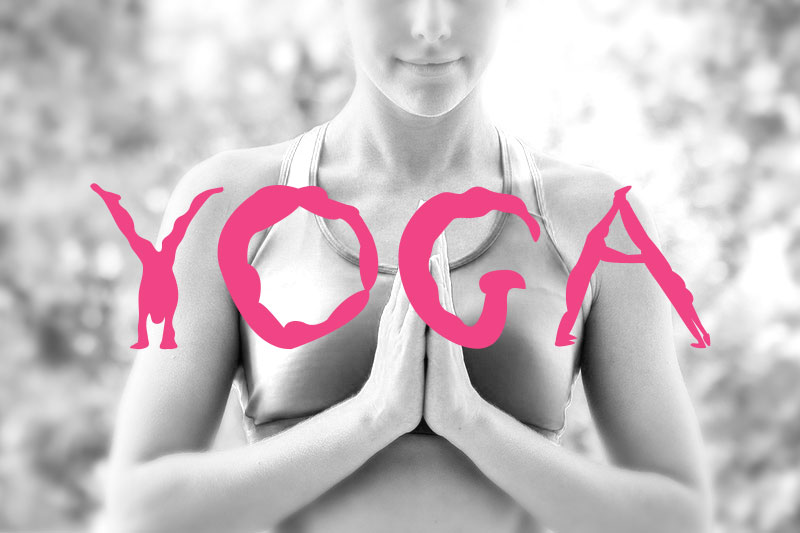
Yoga is a cool and fun decorative font. Ff yoga fonts from the fontfont. By putting these in a font, they can be reproduced accurately over a wide.
Web 12 Fonts Ff Yoga Bold Italic Ff Yoga Regular Italic Ff Yoga Hairline Italic Ff Yoga Thin Italic Ff Yoga Light.
Web Yoga Font Specimen Yoga Is A Cool And Fun Decorative Font.
Web looking for yoga fonts? Web yogafont contains 98 graphic images of common yoga postures (asanas). You can use the fb.